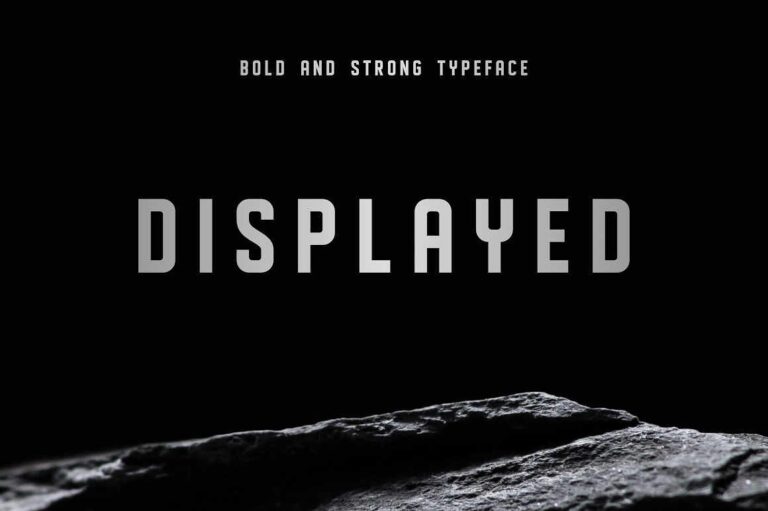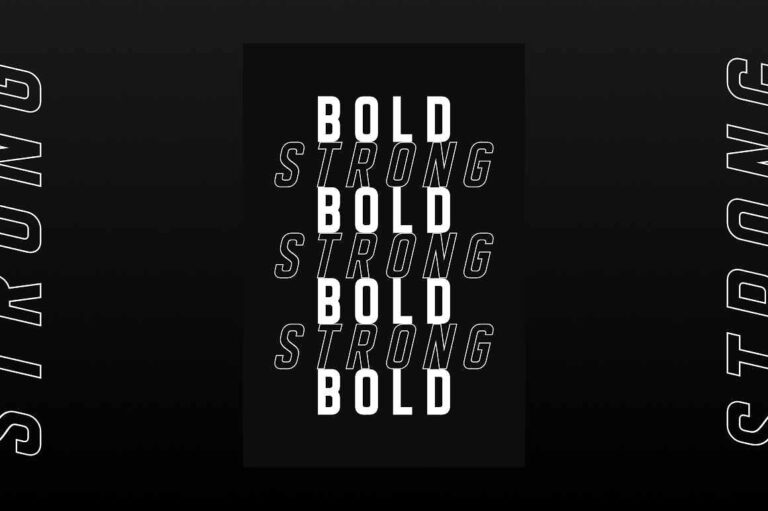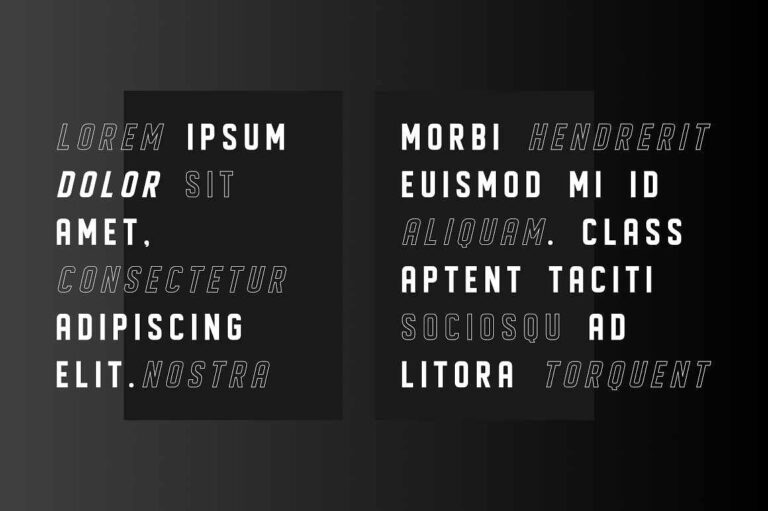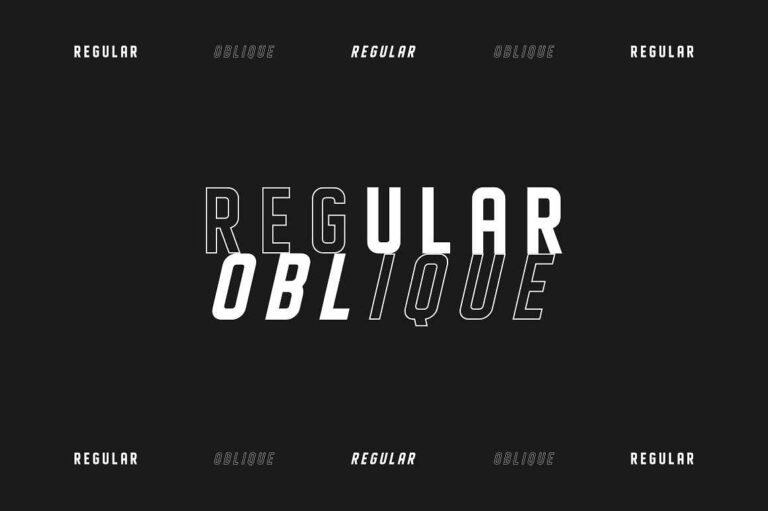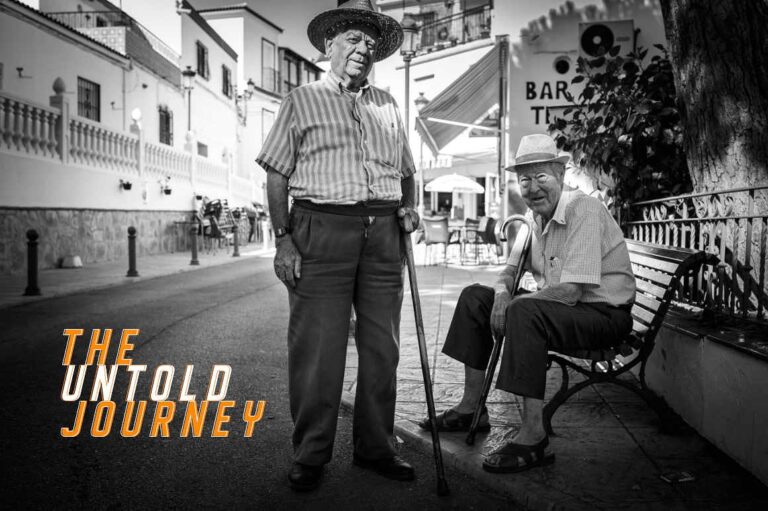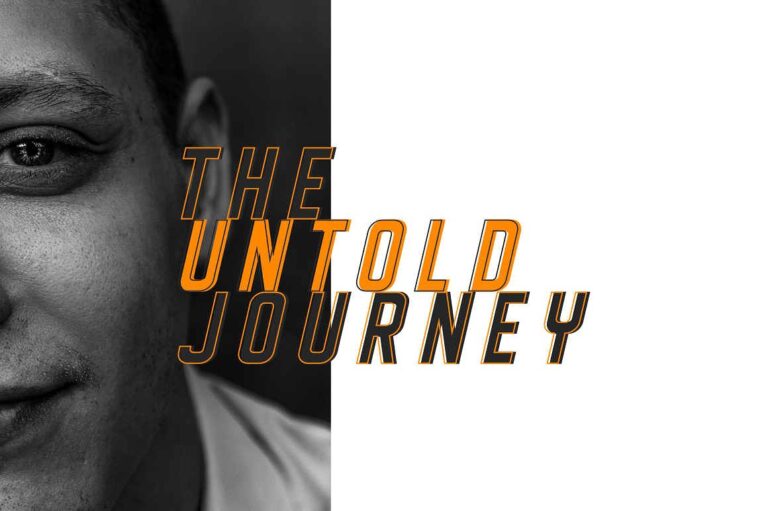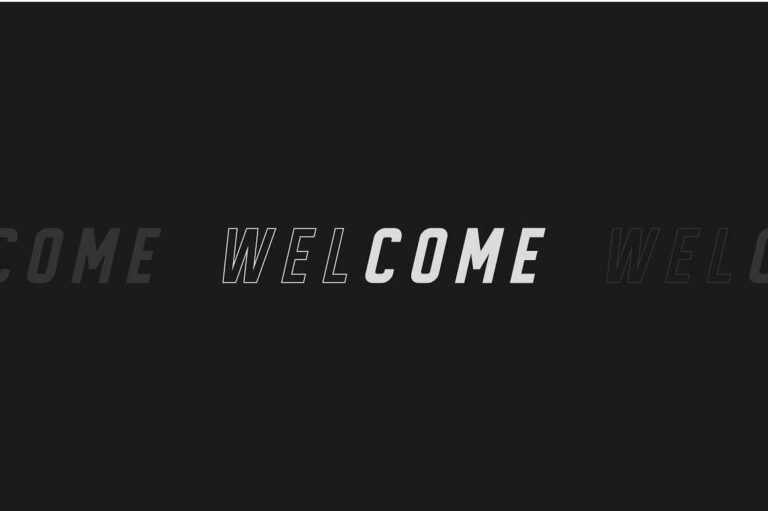
Displayed is a bold and refined logo tech font that fuses modern innovation with timeless vintage flair. Built for engineering minds and creative branding, this sans serif typeface brings together sharp geometric structure and a sleek, elegant edge—perfect for standout logos, stylish fashion labels, or high-end tech projects.
Whether you’re designing for a cutting-edge technology brand, a bold wedding monogram, or a retro-inspired startup, Displayed delivers the right mix of luxury, clarity, and attitude. Its clean lines, minimal vibe, and subtle retro personality make it a strong pick for anyone looking to elevate their design with a font that feels both futuristic and rooted in classic elegance.
From branding to logo design, Displayed is your modern-meets-vintage secret weapon—perfect for creatives who want their fonts to make a lasting impression.